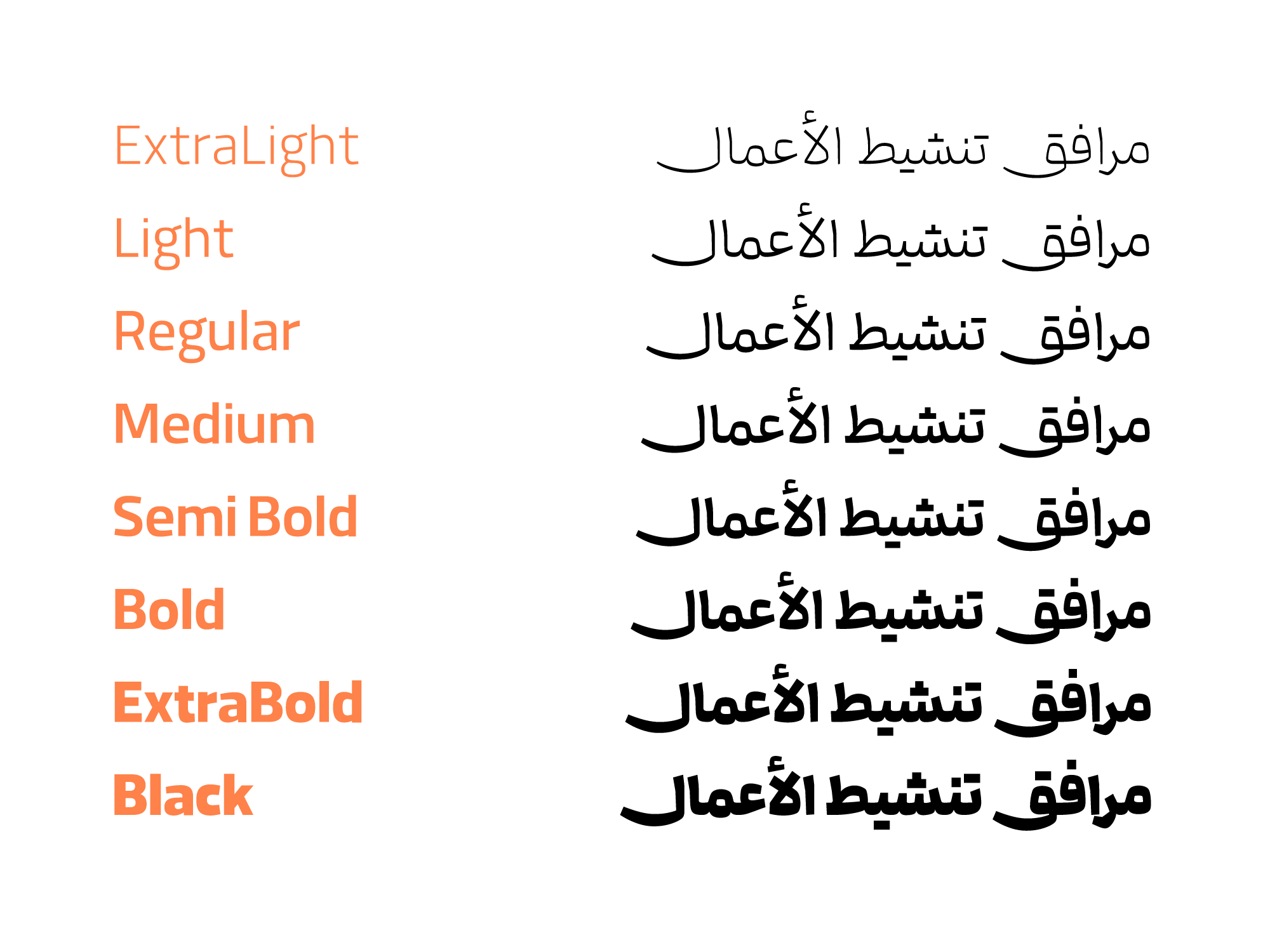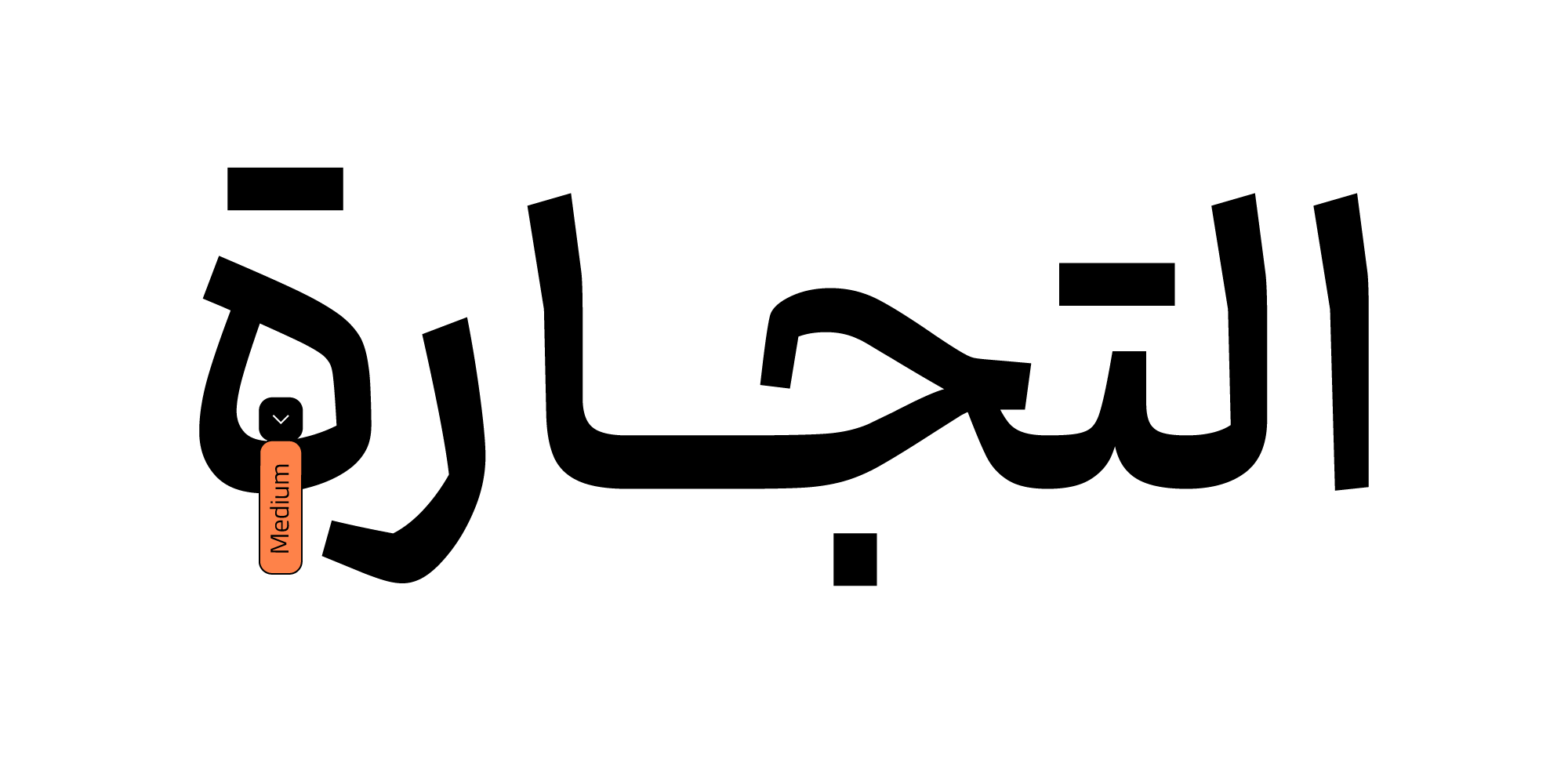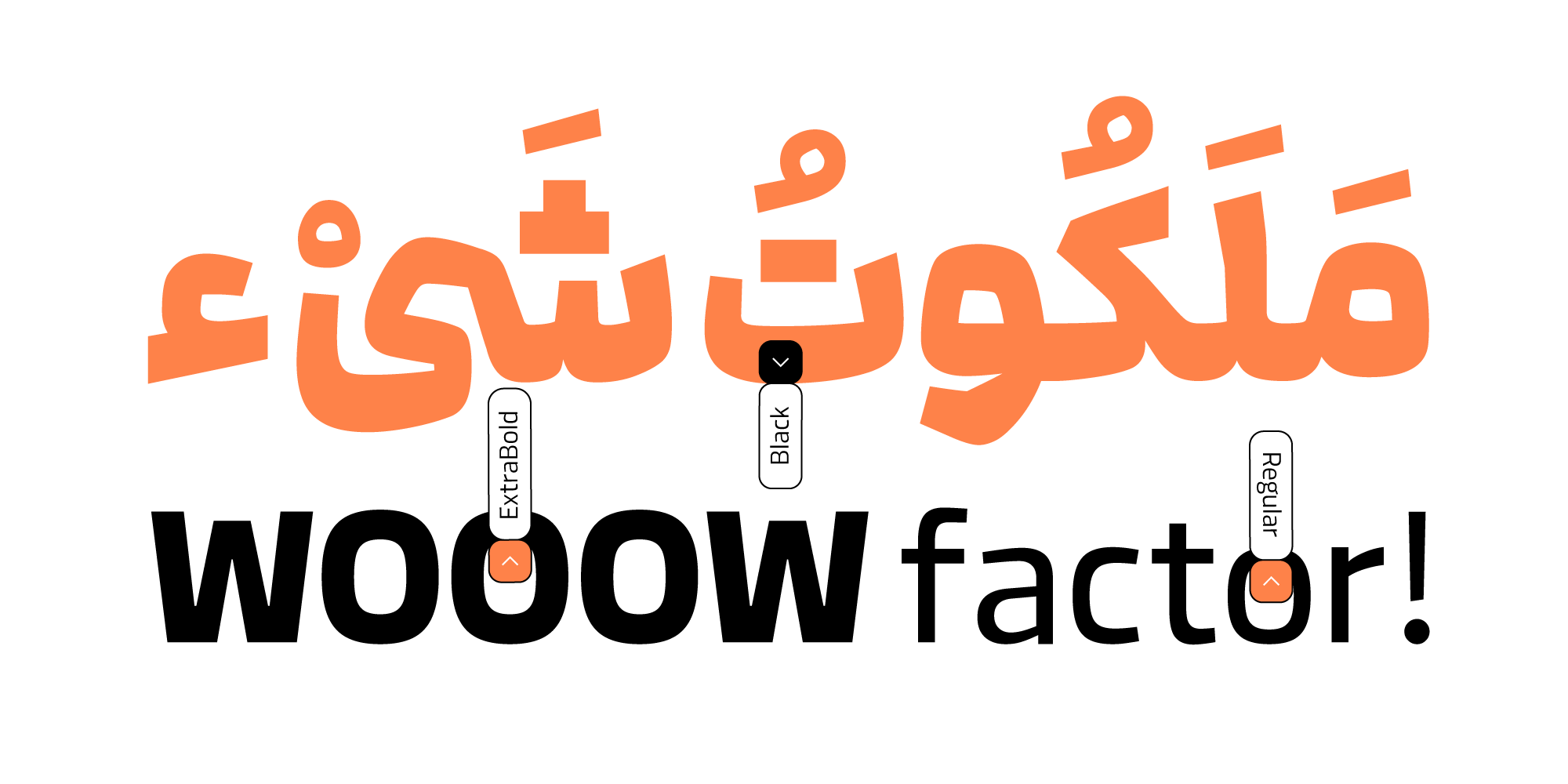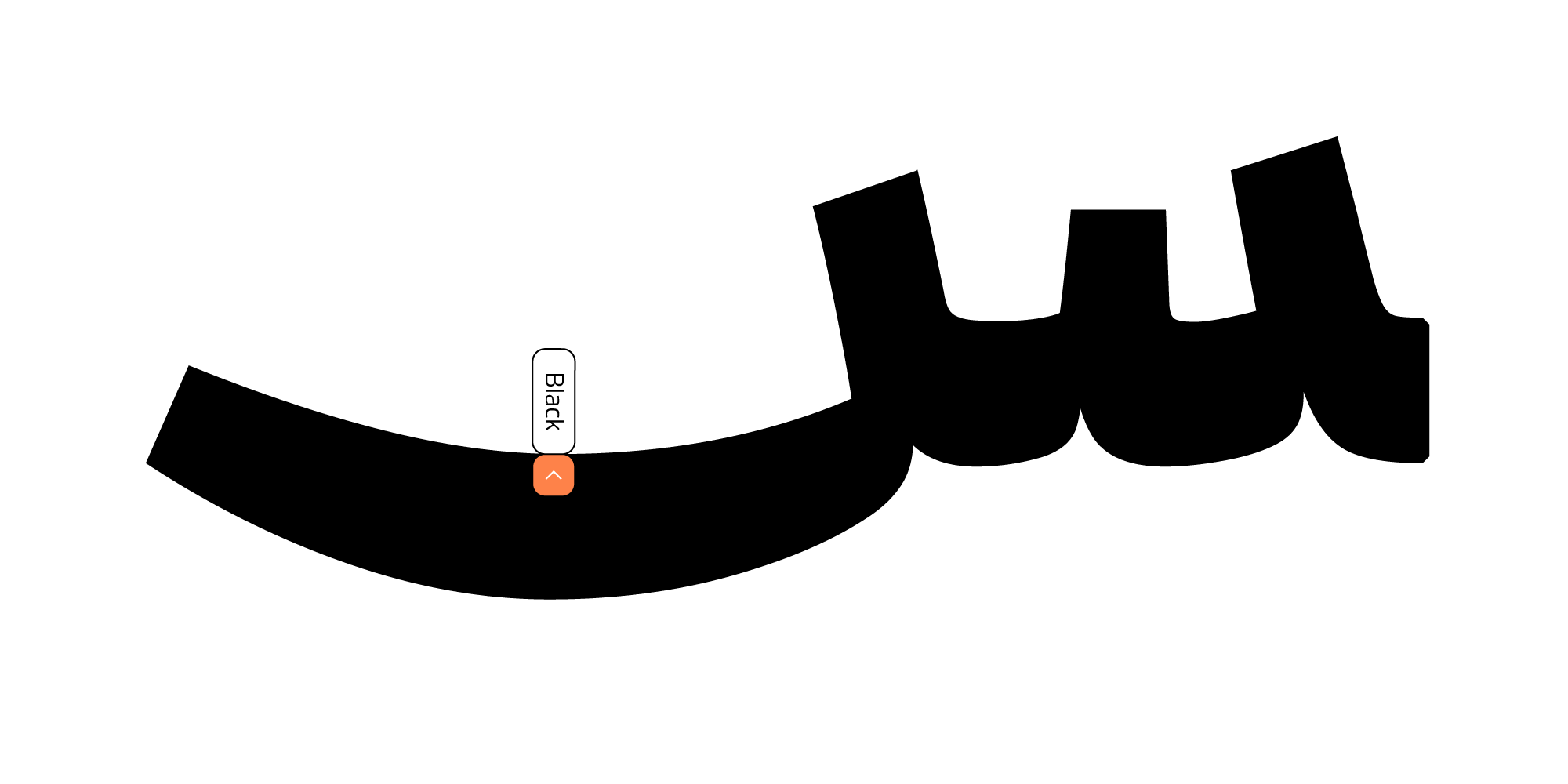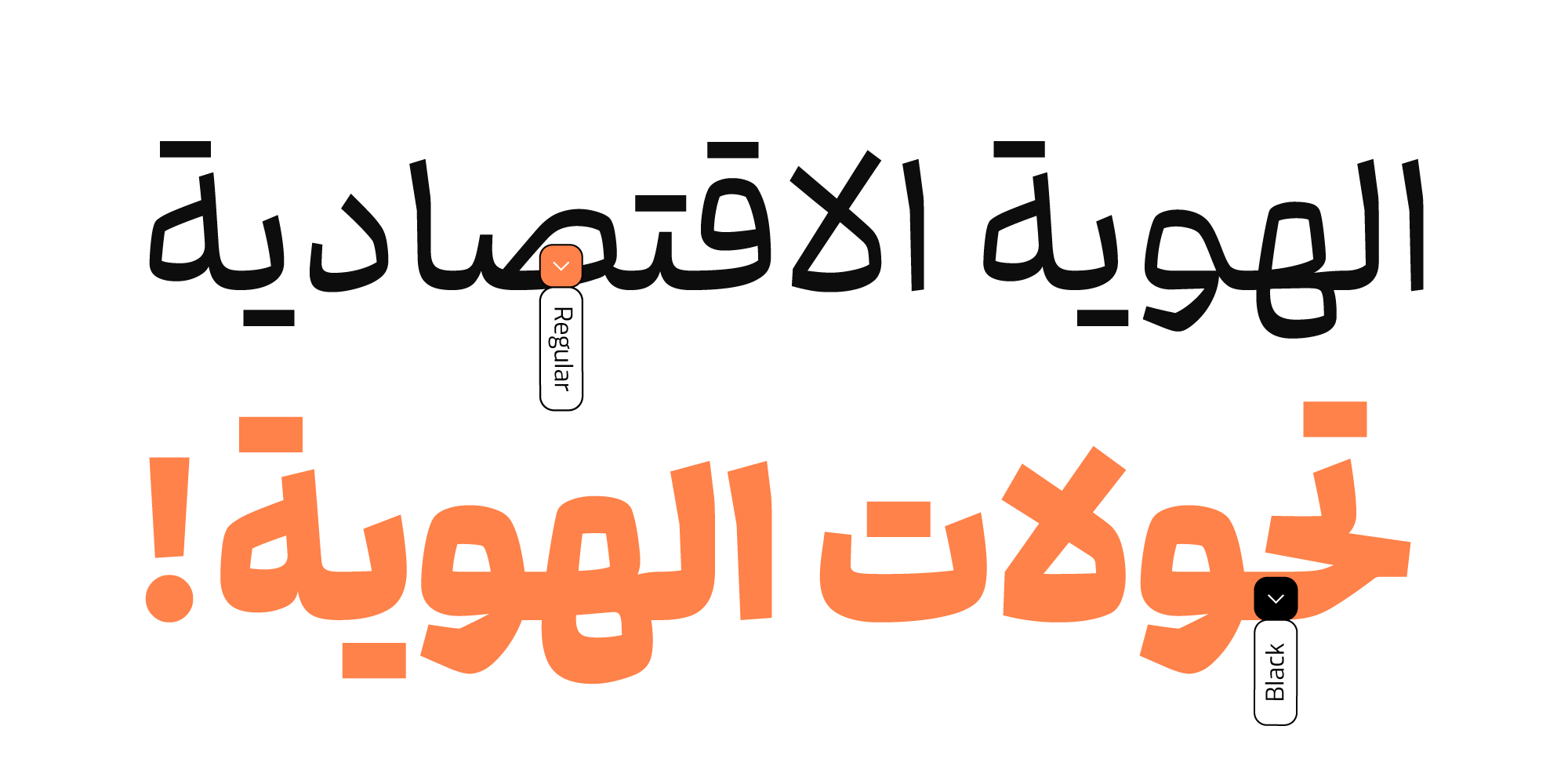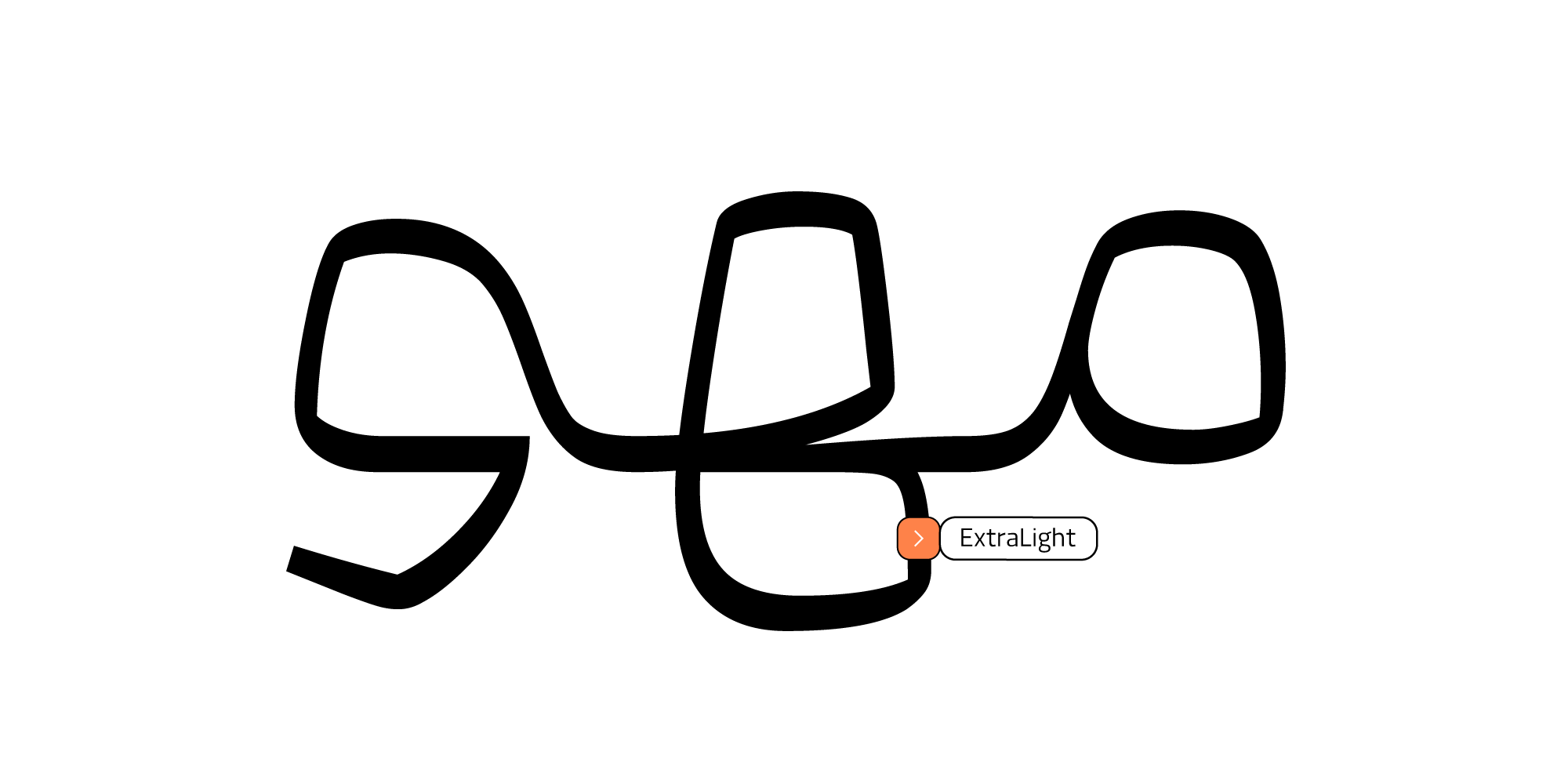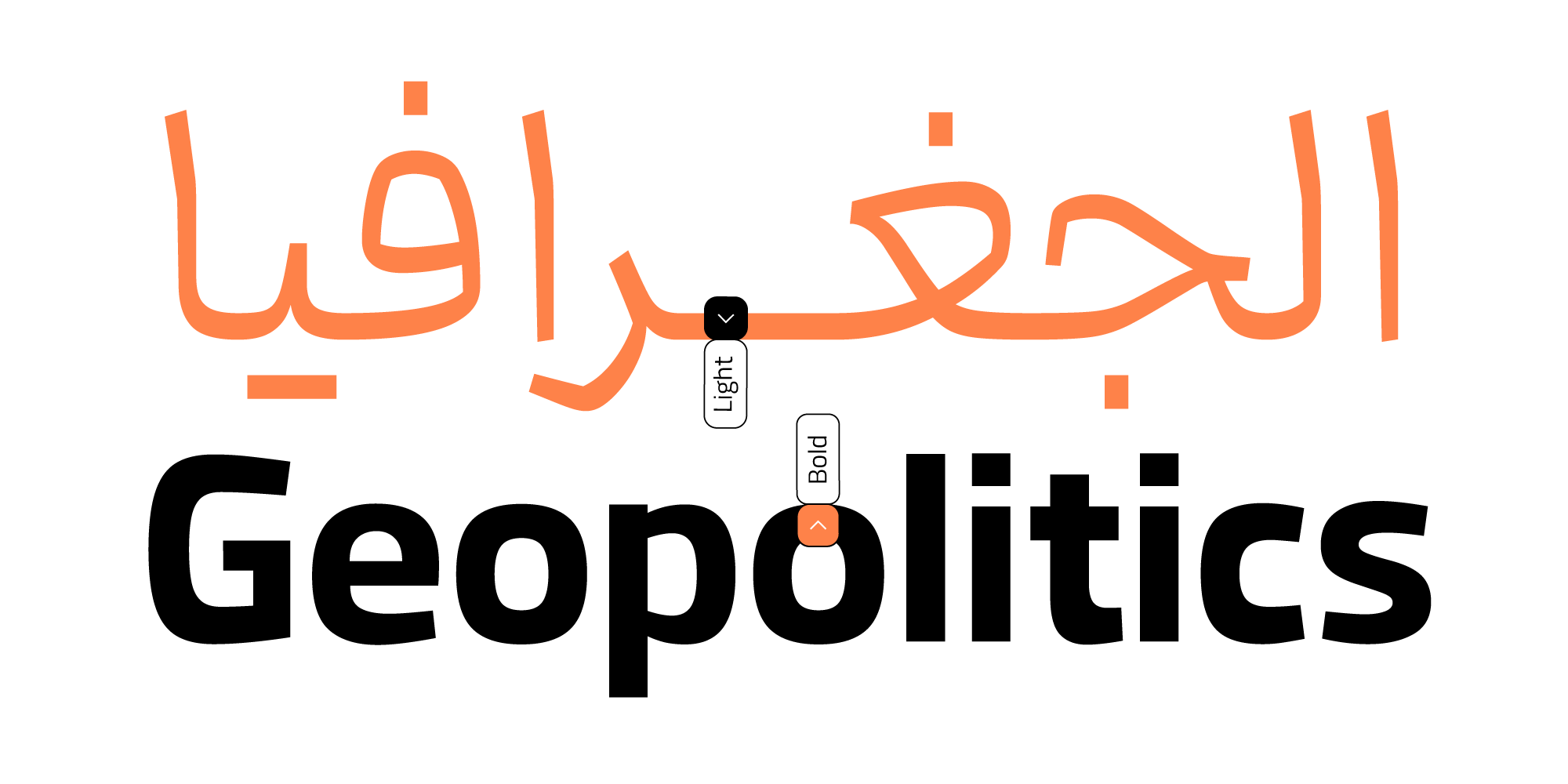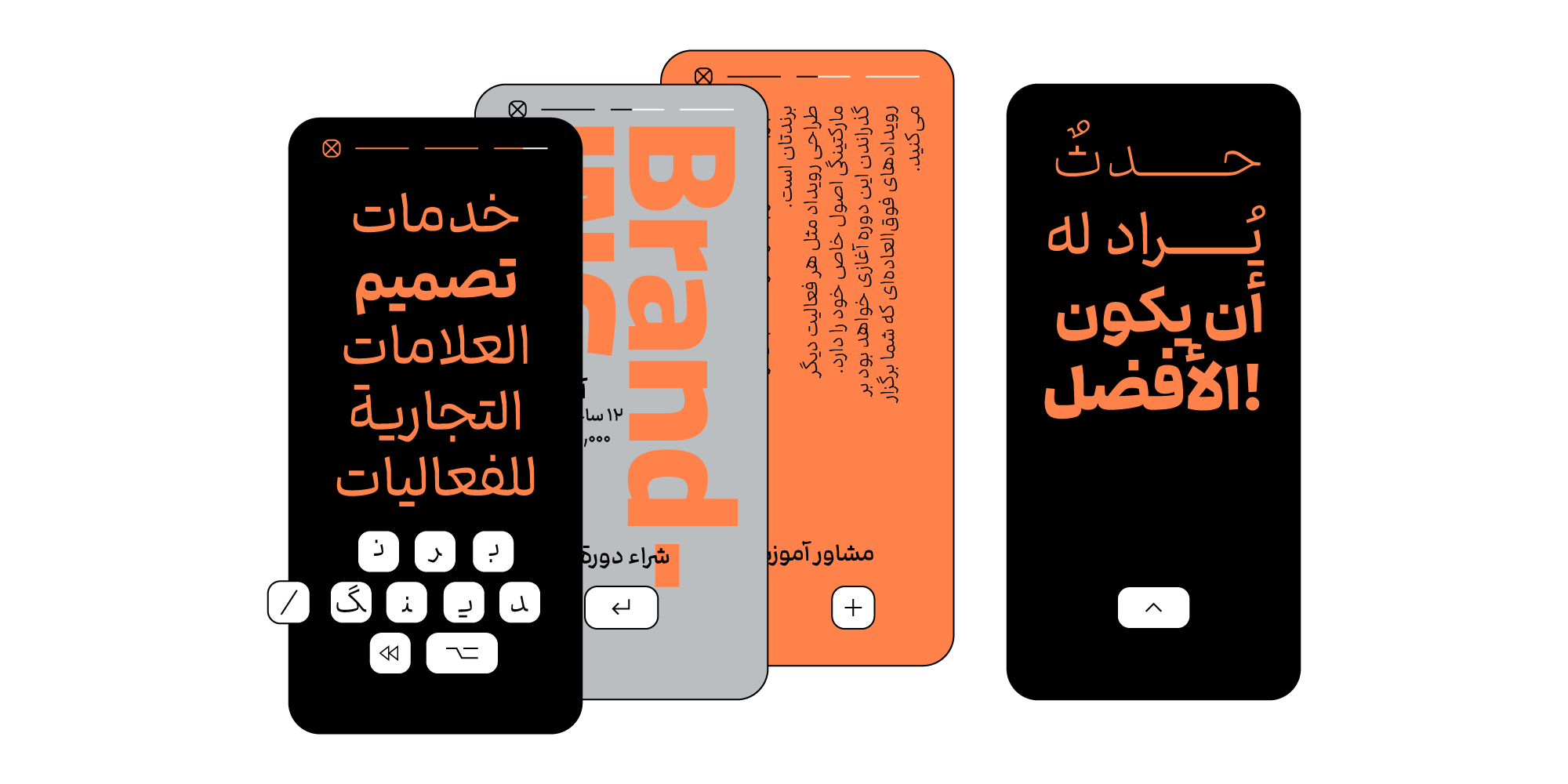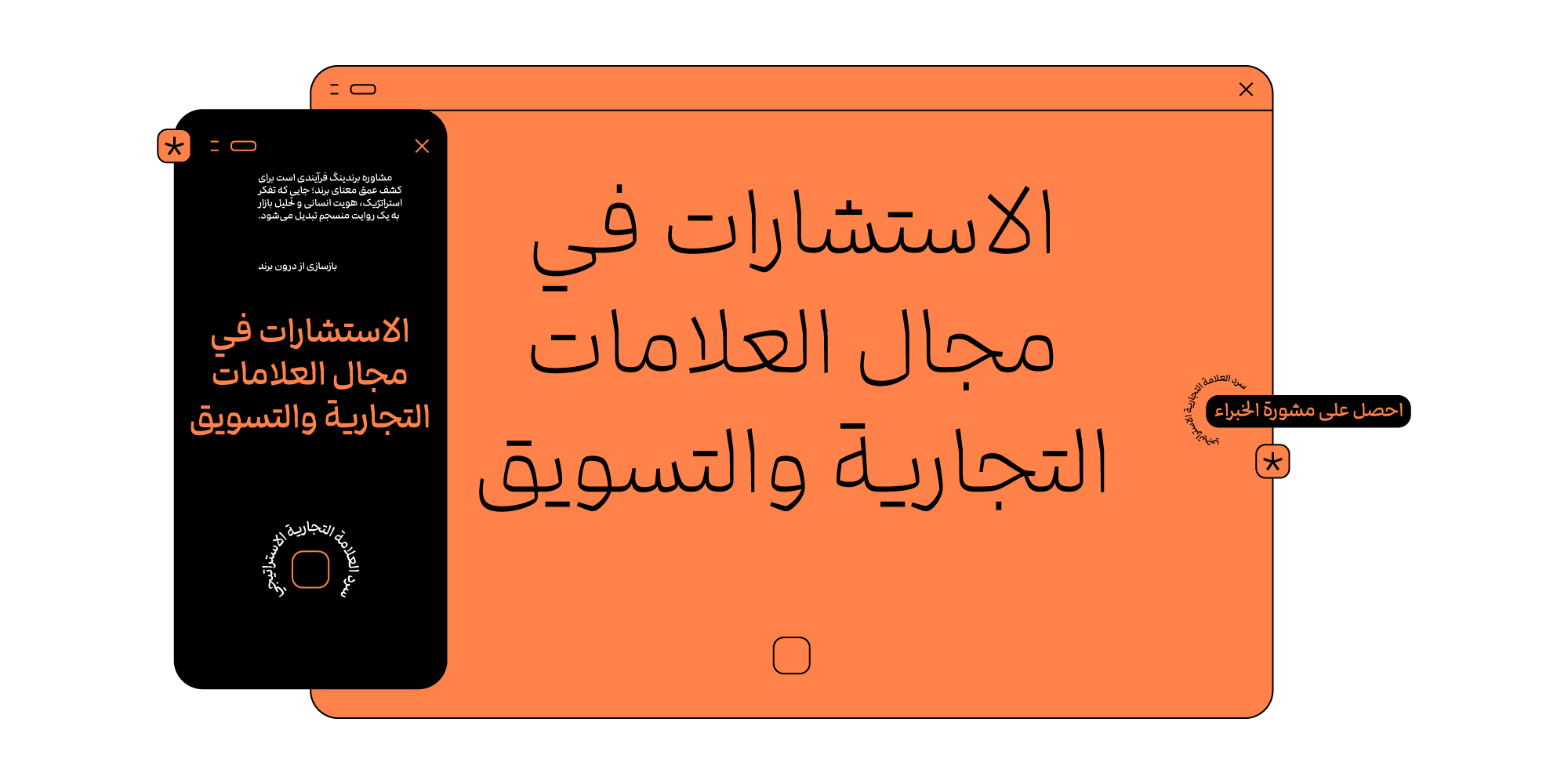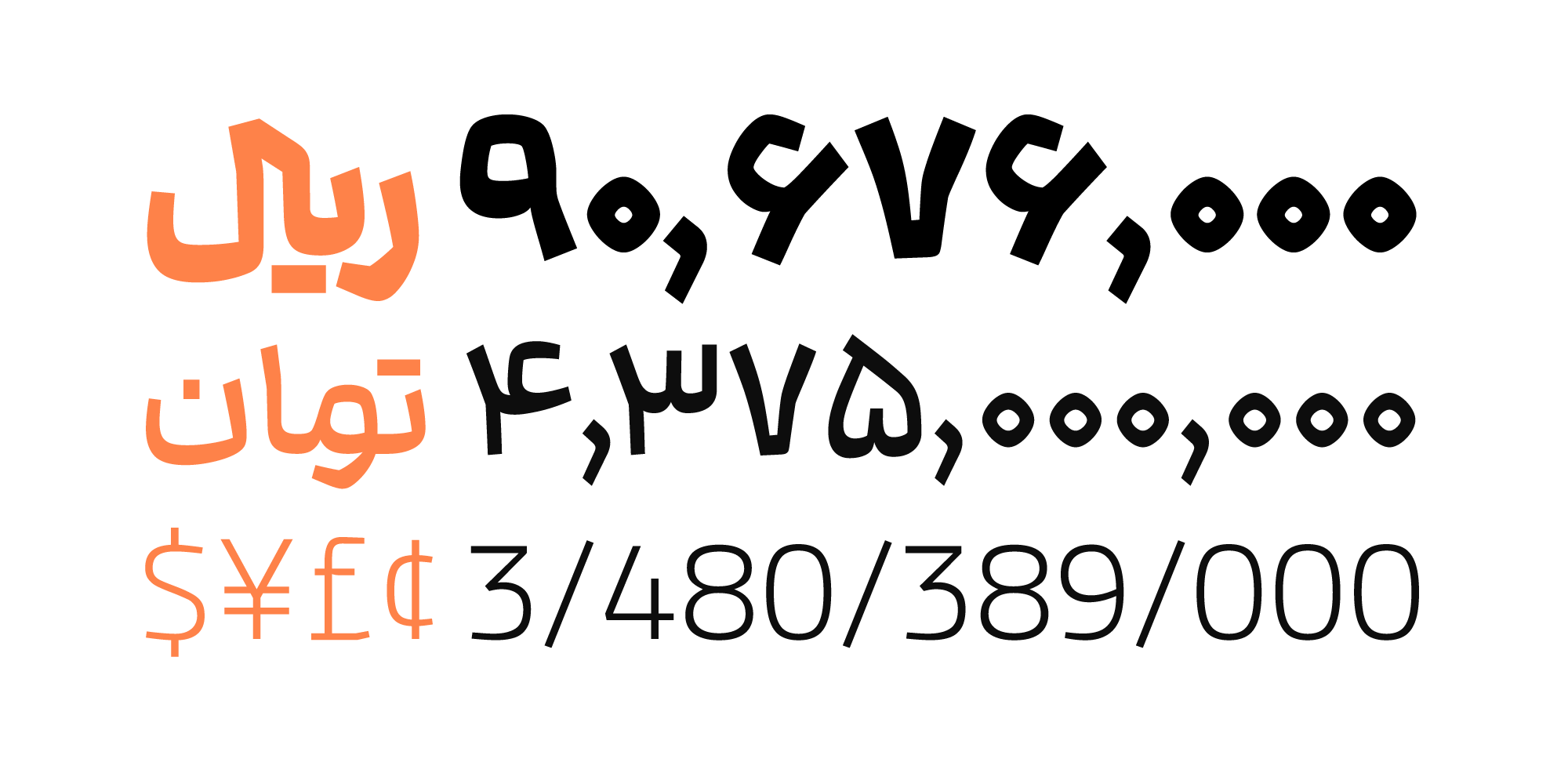
Darbareh
In search of new proportions while preserving the basic features of Persian calligraphy, the first sketches of the "Darbareh" font were formed in 2022. Gradually, the proportions and features were changed until early 2025 when the Extralight weight was completed and then the remaining weights were designed.
Varible Font
The "Darbareh" font is presented as a Varible Font, which, in addition to providing access to weights intermediate between the standard weights, makes all weights available in the form of a single font file.
Standard weights
"Darbareh" in its professional package comes in 8 standard weights from ExtraLight to Black, making it suitable for a variety of applications from content creation and UX/UI to advertising and print. The Darbareh font family is also optimized for use in web spaces, and the required files are placed alongside the main files.
Supports English, Arabic, Kurdish and Urdu languages
The Darbareh typeface supports Arabic,Persian, Kurdish, Urdu, and English. The Cairo font is used for the Latin characters of this font.
Alternative letters and Ligatures
To provide variety in writing style and readability, alternates for some letters and several binary Ligatures have been specified.
In the "Darbareh" font, alternates have been designed for a number of letters. These alternate letters are in the Stylistic Alternates category, which are also available as Stylistic Sets (Set01, Set02, Set03).
Also, the stretched (alternative) form of the letters "ک", "س", "ي" and several other letters are in the Swash category.
Binary Ligatures ending in the letters "ي", "ر" and "ن" are available as Standard Ligatures.
Also, alternate binary combinations not ending in the letters "ي", "ر" and "ن" and the symbols for Rial and Toman are available as Discretionary Ligatures.